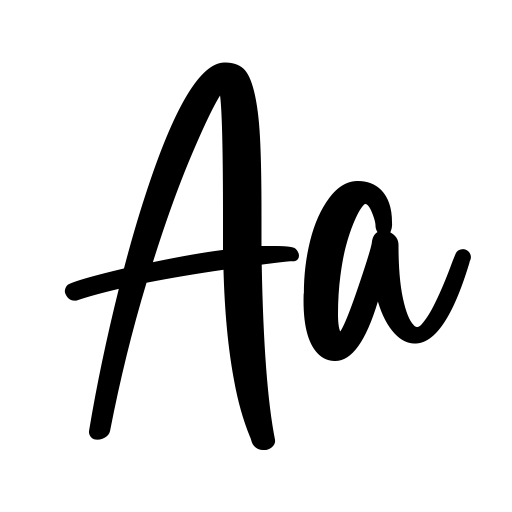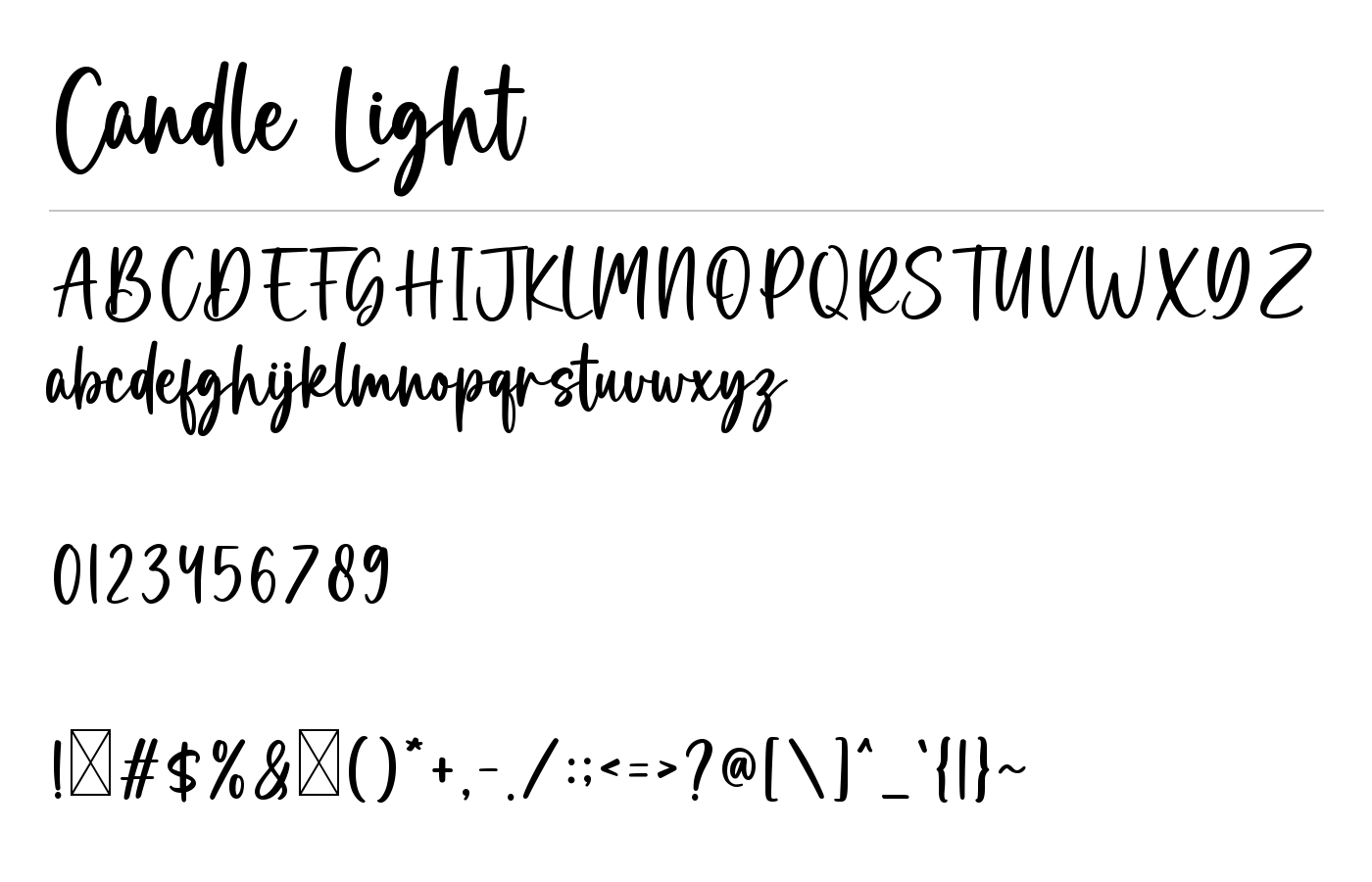
Candle Light is a friendly and modern handwritten script font featuring smooth, flowing strokes and a lively, casual charm. Its medium weight and tall x-height give it great readability while maintaining an elegant, personal touch, making it ideal for invitations, branding, and creative projects that want to convey warmth and approachability. This font works well for designs seeking a stylish yet informal feel, perfect for both digital and print use.
Candle Light Font
About Candle Light Font